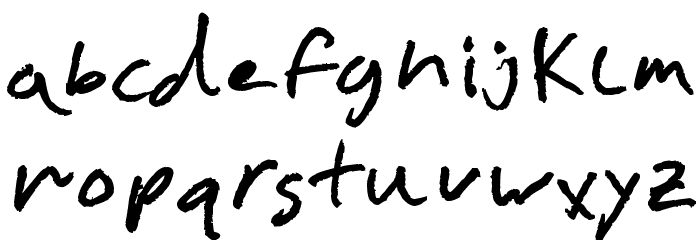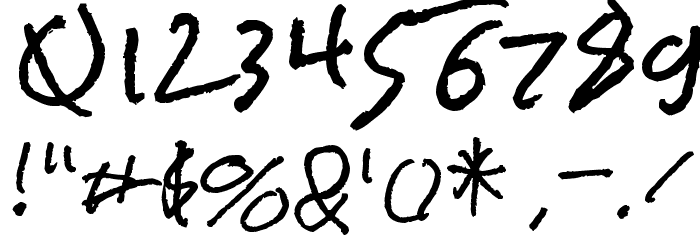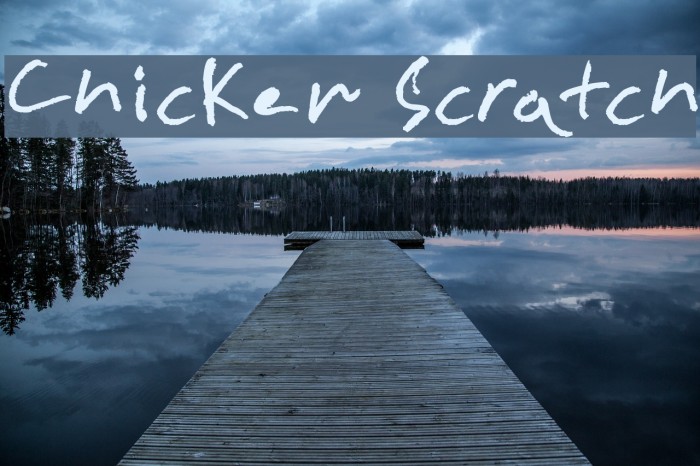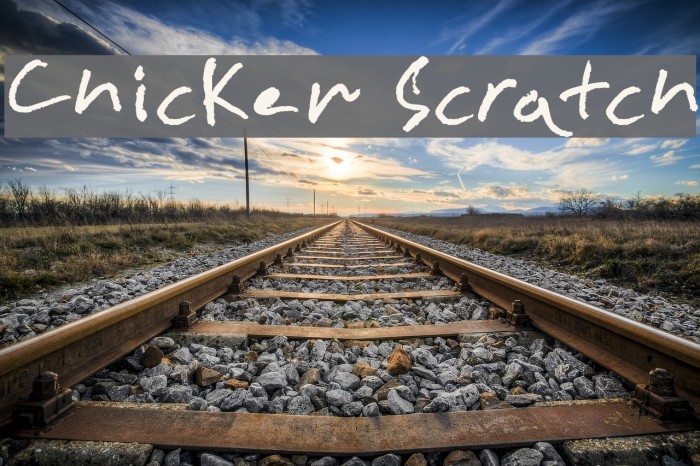
Chicken Scratch Font
This font exudes a casual, handwritten style reminiscent of quick, informal notes. The strokes are uneven and slightly jagged, giving it a spontaneous and dynamic appearance. The uppercase and lowercase letters are distinct, with some characters like 'A' and 'a' showing a playful tilt. Numbers and special characters maintain the same energetic vibe, with varying stroke thickness that adds to its charm. The overall look is unpolished yet intentional, making it ideal for projects that require a personal touch.
A casual, handwritten font with uneven, dynamic strokes.
- Proposed Projects: Ideal for personal notes, informal invitations, creative projects, and artistic designs.
- Overall Style: Casual, Artistic
- Use Case: Creative projects, Personal notes